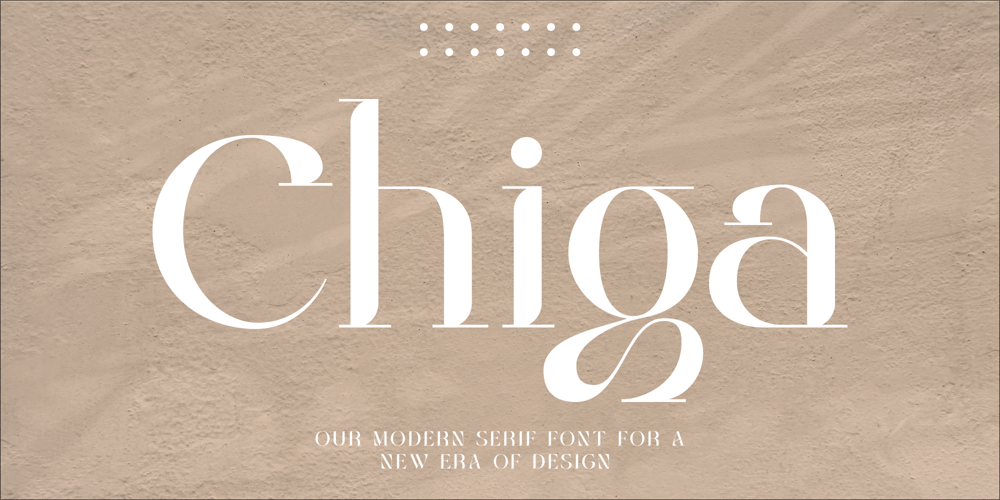
Chiga Font Family was designed by Bakhrudin Ja’far and published by Jafar07. Chiga contains 1 styles and family package options. Looking for a font that stands out? Chiga is the answer! This modern serif font features unique curves on every letter and clean, straight strokes that give it a distinctive, eye-catching character.Chiga is ideal for branding, posters, and other professional projects. This font is not only elegant and unique but also easy to read, Chiga is sure to make an impact.What are you get? Special Ligatures & Alternates Numbers & Punctuation Multilingual Support Works onMac PC & Mobile Simple Installations